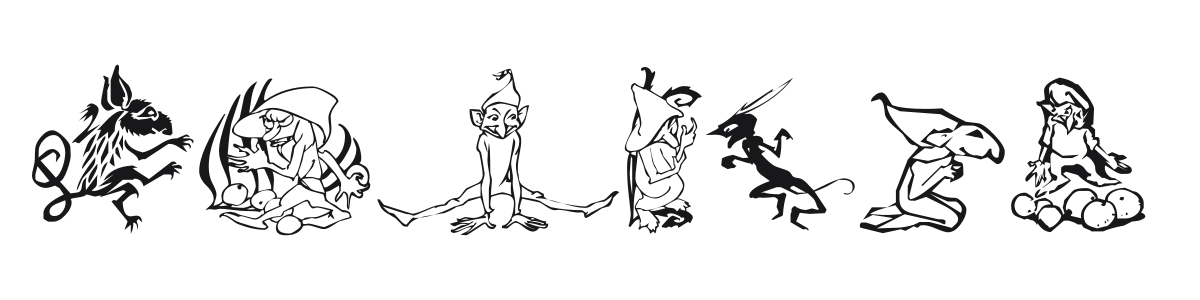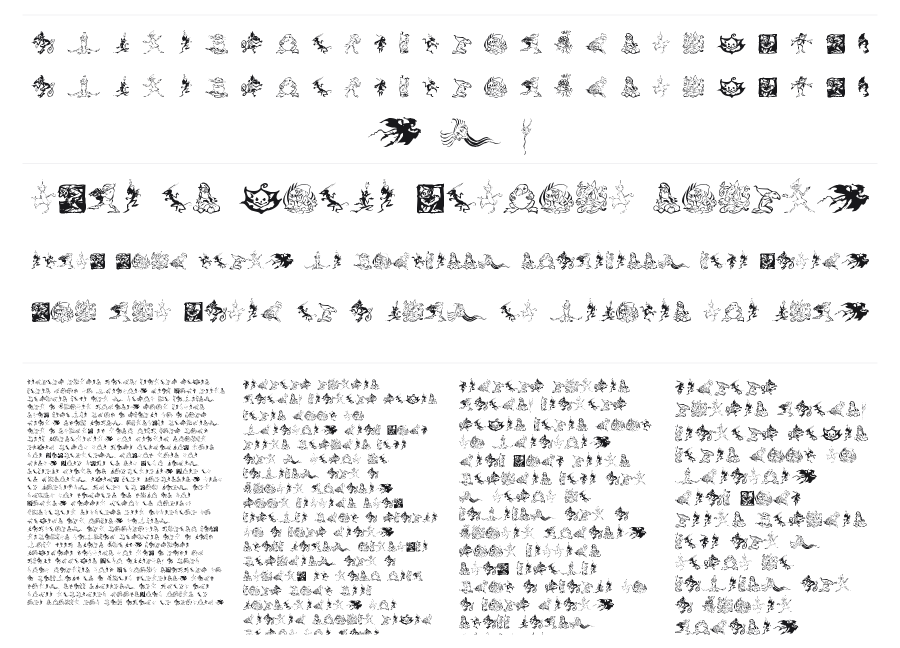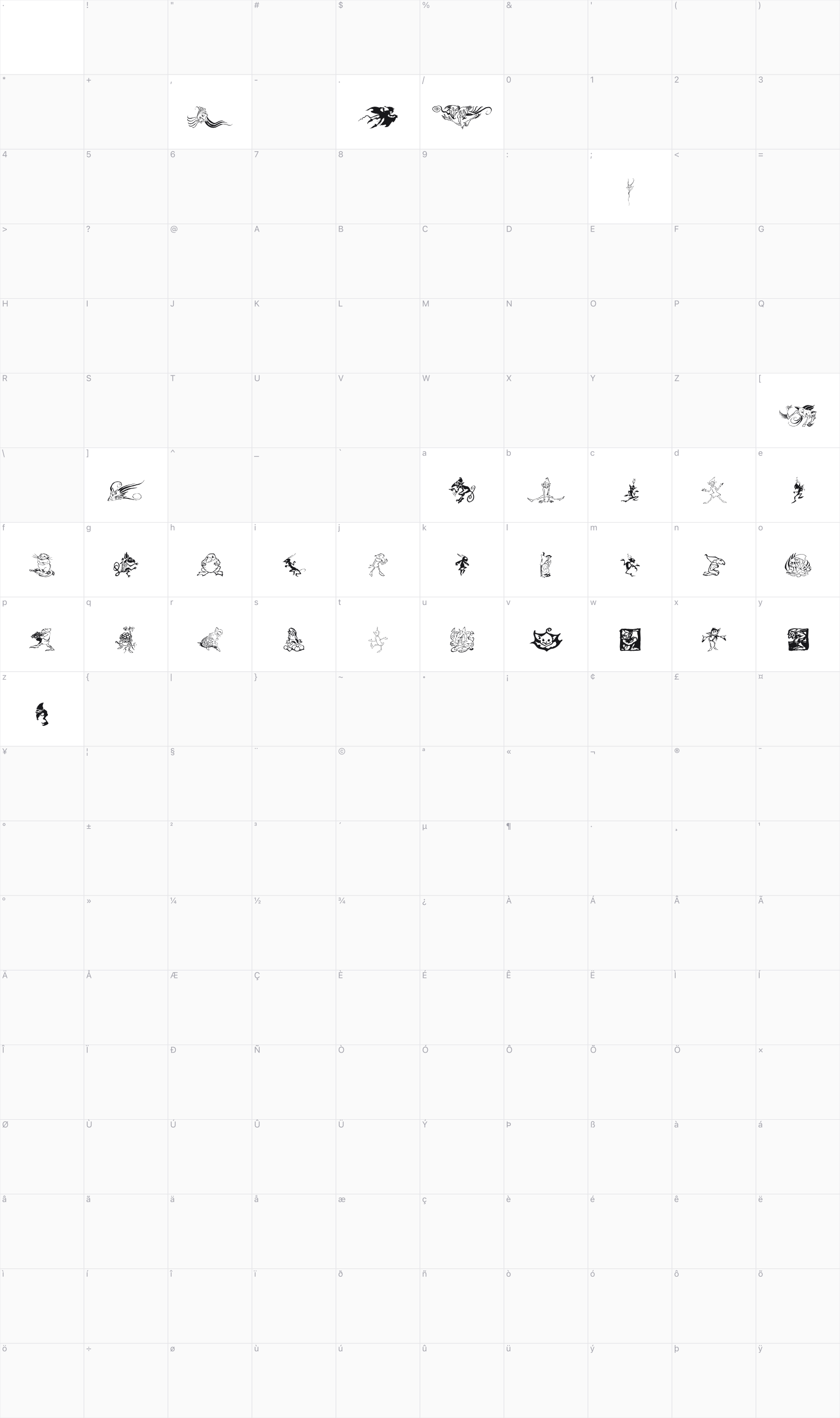
Goblins
Goblins is a dingbat font from Scriptorium Fonts featuring a cast of hand-drawn fantasy creatures: goblins, imps, witches, dragons, and other mischievous beings. Each character is a standalone illustration rendered in expressive black-and-white linework with a medieval-manuscript feel. A natural pick for game materials, fantasy publishing, or any project that needs a touch of the fantastical.